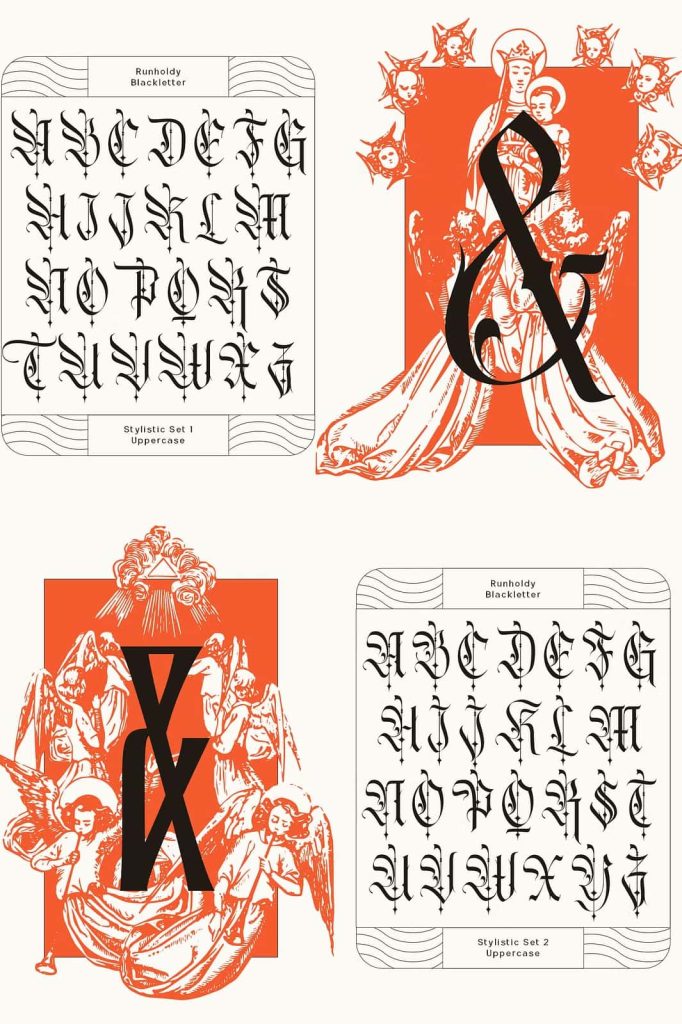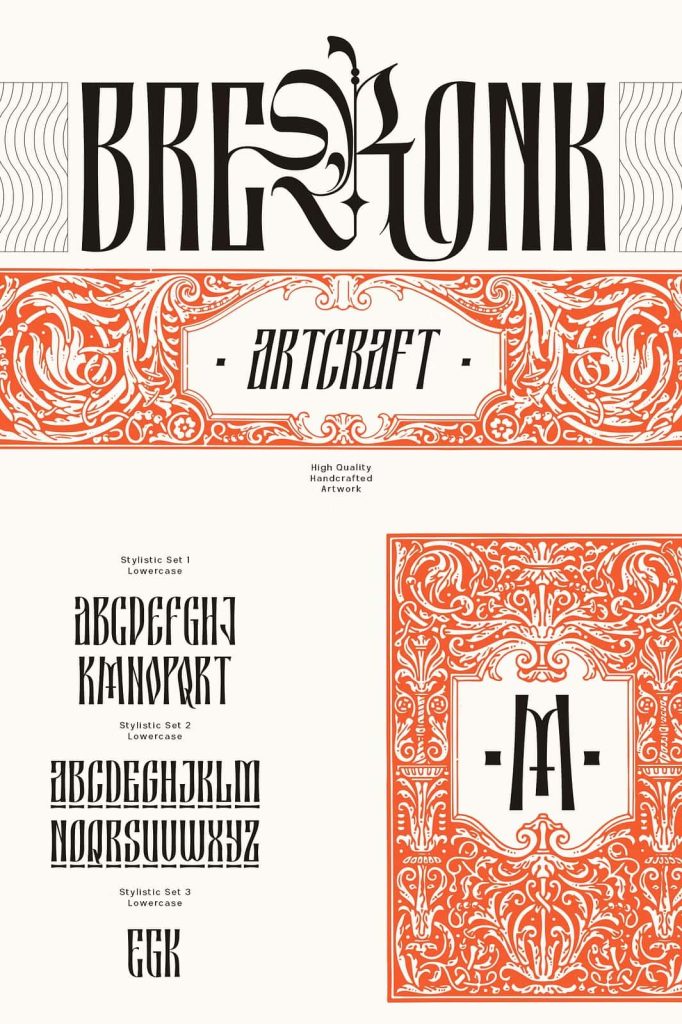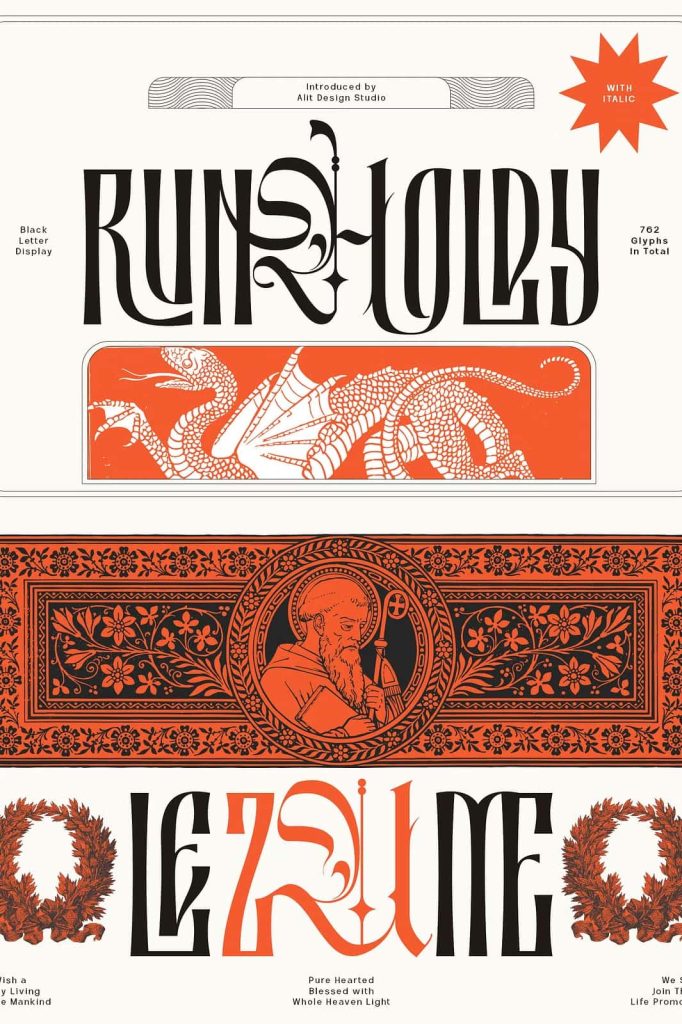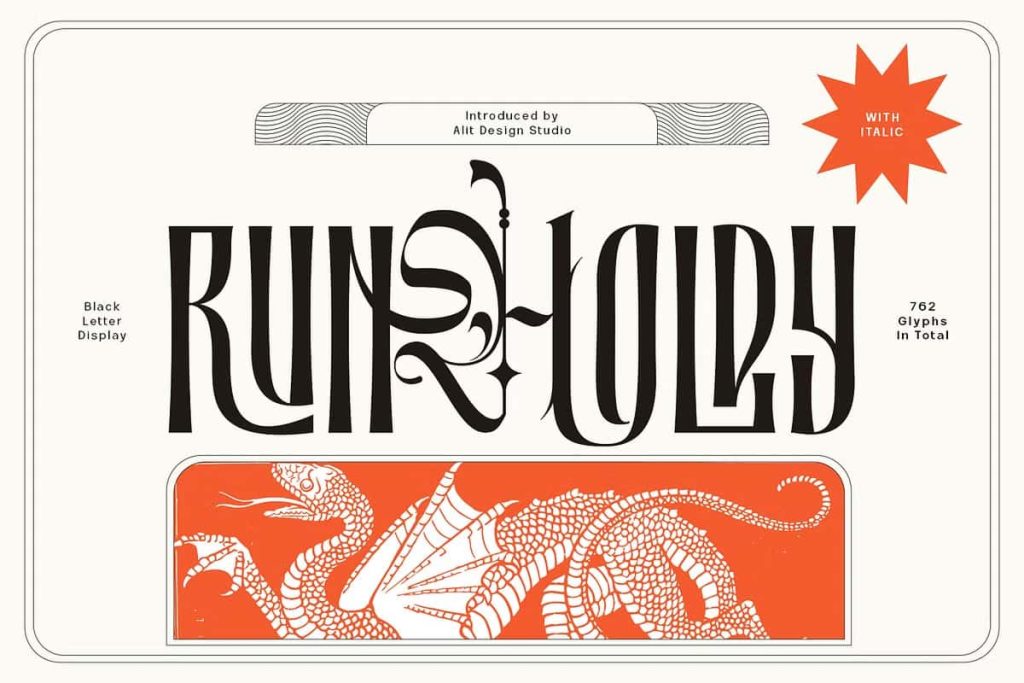
Runholdy Typeface
RUNHOLDY Font
RUNHOLDY Font is a distinctive typeface that blends dark beauty with modern design sophistication. Created for designers who want to make a powerful visual statement, this font combines the clean structure of contemporary sans serif typography with the dramatic elegance of traditional blackletter influences. The result is a unique and highly expressive font that stands out in both digital and print applications.
Designed with attention to detail and artistic character, RUNHOLDY delivers a bold visual identity that captures attention instantly. Its striking letterforms create a balance between classic gothic inspiration and modern aesthetics, making it suitable for a wide range of creative projects. Whether you are building a memorable brand, designing eye-catching merchandise, creating album artwork, or developing premium packaging, RUNHOLDY provides the visual impact needed to elevate your design.
A Unique Combination of Modern Sans Serif and Blackletter Styles
RUNHOLDY breaks traditional typography boundaries by merging two distinct design styles into a single cohesive typeface. The font incorporates the clean readability and contemporary appearance of modern sans serif typography while introducing the dramatic character and ornamental beauty commonly associated with blackletter fonts.
This innovative combination creates a fresh visual language that feels both timeless and modern. Designers can use RUNHOLDY to create typography that communicates confidence, mystery, elegance, and individuality. The fusion of styles makes the font highly adaptable across various industries and creative disciplines.
Unlike conventional blackletter fonts that may feel overly historical or difficult to read, RUNHOLDY introduces modern refinements that improve versatility while preserving its distinctive gothic personality.
Inspired by Dark Beauty and Contemporary Design
The core concept behind RUNHOLDY revolves around the idea of dark beauty. Every character reflects a carefully balanced aesthetic that combines dramatic visual elements with sleek modern styling. This artistic direction gives the font a sophisticated appearance that works exceptionally well in luxury, fashion, music, entertainment, and lifestyle branding.
The font’s bold personality allows designers to create designs that feel exclusive, memorable, and visually compelling. Whether used in large headlines or featured prominently within branding materials, RUNHOLDY instantly becomes a focal point of the composition.
Its unique visual character makes it particularly appealing for projects that require originality and strong emotional impact.
Extensive Character Set with 762 Glyphs
One of the most impressive features of RUNHOLDY Font is its extensive collection of 762 glyph characters. This comprehensive character set provides designers with a wide range of creative possibilities, making the font suitable for complex and highly customized typography projects.
The large glyph library allows users to experiment with various stylistic alternatives, decorative elements, and character combinations. This flexibility enables the creation of unique typographic compositions that feel handcrafted and distinctive.
Features Included in RUNHOLDY Font
• 762 carefully designed glyph characters
• Unique modern blackletter and sans serif fusion
• Rare and decorative ligatures
• Elegant swash variations
• Stylish alternate characters
• Creative typography possibilities
• Professional-quality design structure
• Suitable for both print and digital media
These advanced typographic features provide designers with greater control over the final appearance of their projects while encouraging creative exploration.
Rare Ligatures for Custom Typography
RUNHOLDY includes a collection of rare ligatures that add depth and uniqueness to its design. Ligatures help connect characters in visually pleasing ways, creating smoother and more artistic word formations. These special combinations give typography a custom-crafted appearance without requiring manual lettering adjustments.
Designers can use these ligatures to enhance logos, headlines, brand names, and promotional materials. The additional character combinations help prevent repetitive letterforms while introducing a more organic and professional look.
This feature is especially valuable for branding projects where originality and visual identity are critical to success.
Elegant Swashes for Enhanced Visual Impact
In addition to its extensive ligature collection, RUNHOLDY includes beautiful swash elements that add movement, elegance, and decorative flair. Swashes allow designers to customize typography with sophisticated flourishes that enhance the overall visual presentation.
These decorative details can transform ordinary text into dramatic display typography, making the font particularly effective for luxury branding, event promotions, invitations, album covers, and high-end packaging designs.
Whether you are developing a bold logo, building a luxury brand identity, designing merchandise, producing album artwork, or creating promotional materials, RUNHOLDY delivers the visual impact and artistic sophistication needed to make your work unforgettable. Its combination of originality, versatility, and premium craftsmanship makes it a valuable addition to any designer’s font collection.